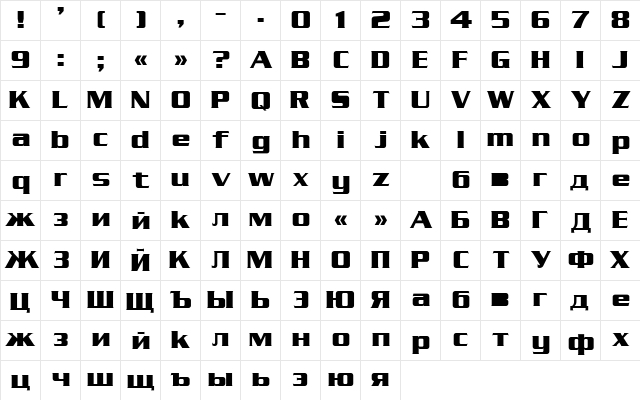
Serpentin_DG Bold
Design Context for Serpentin_DG Typeface
Serpentin_DG offers clean, dependable letterforms without strong stylistic allegiance, making it a practical choice for designers who need flexibility. The heavy weight commands attention and anchors typographic hierarchies.